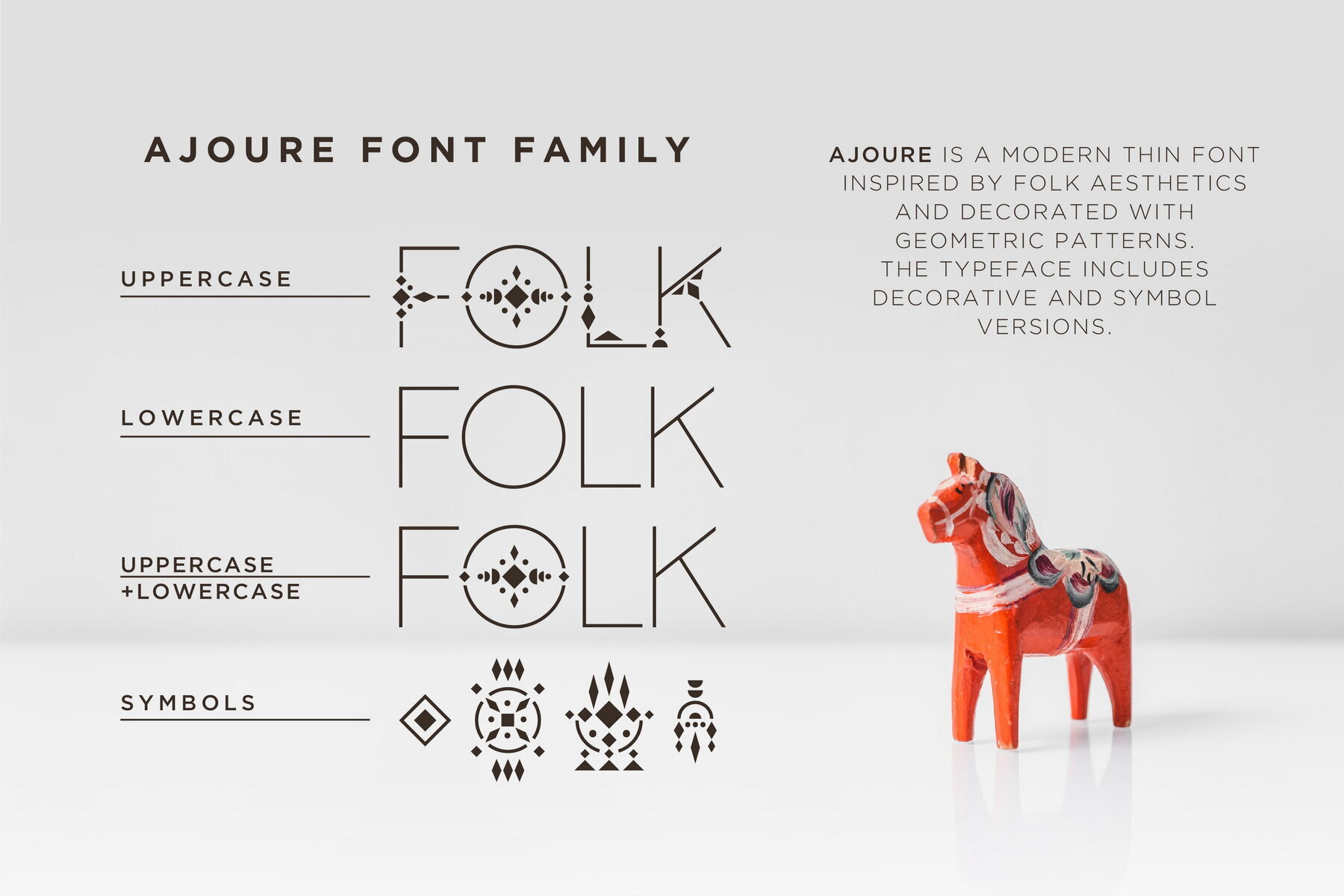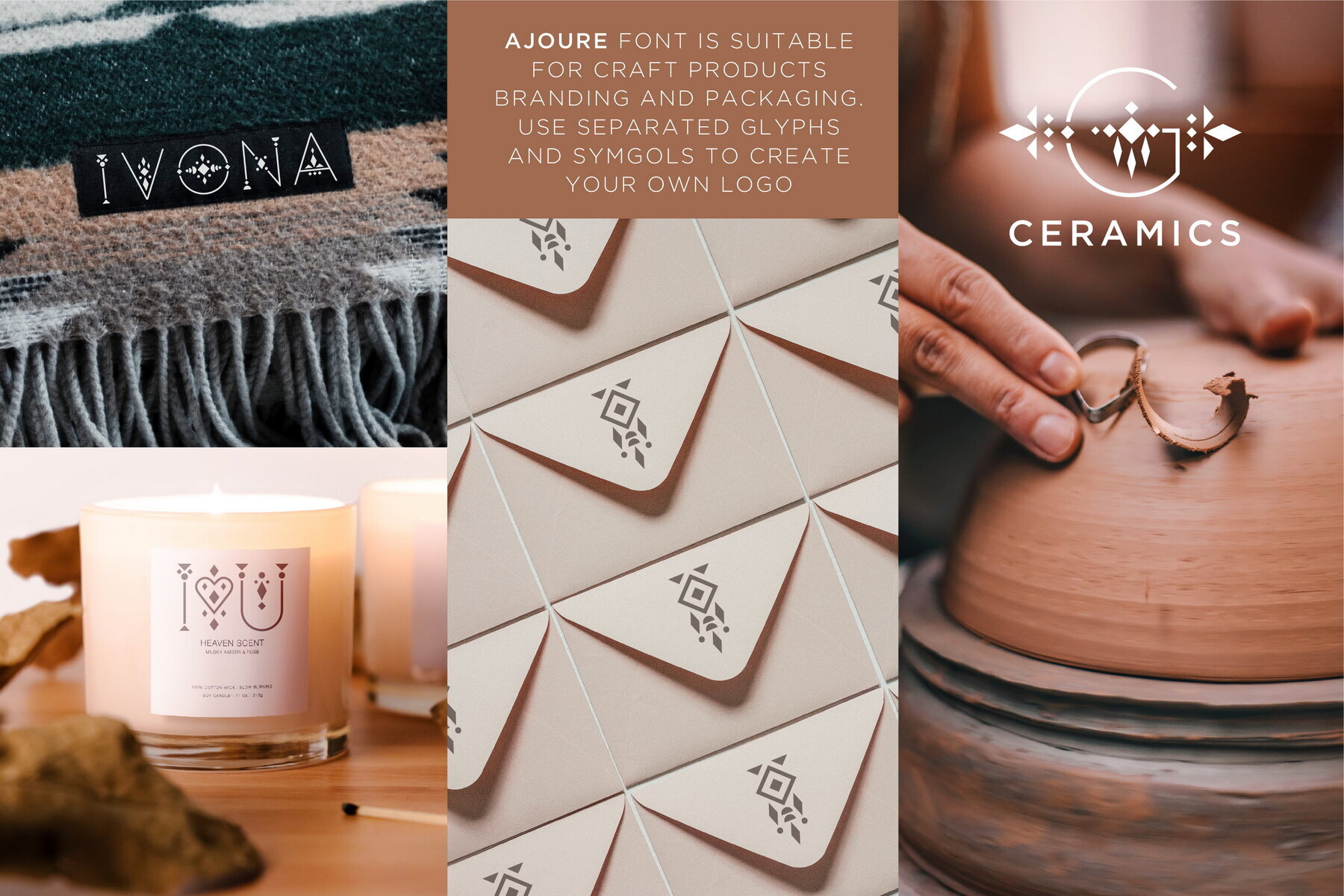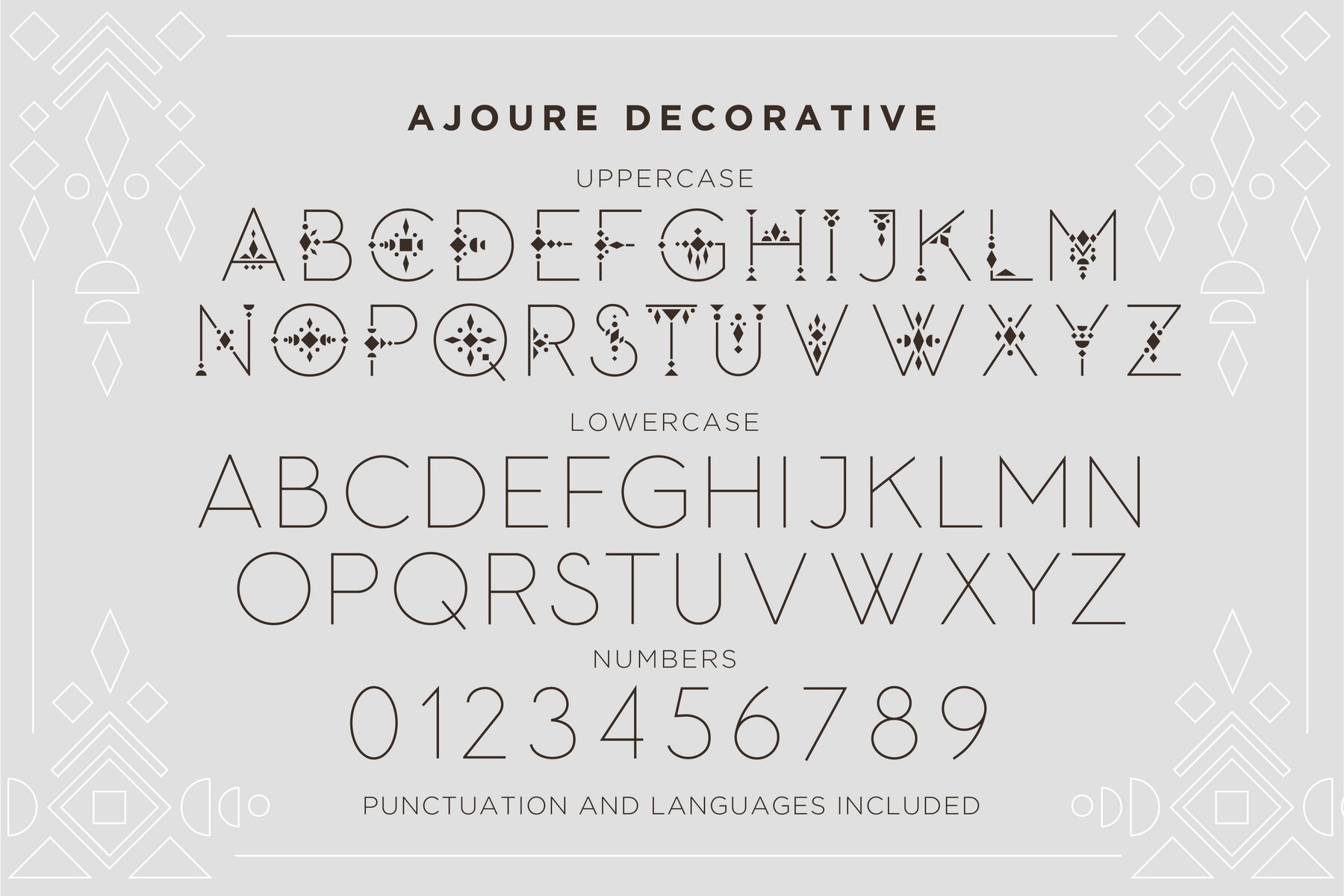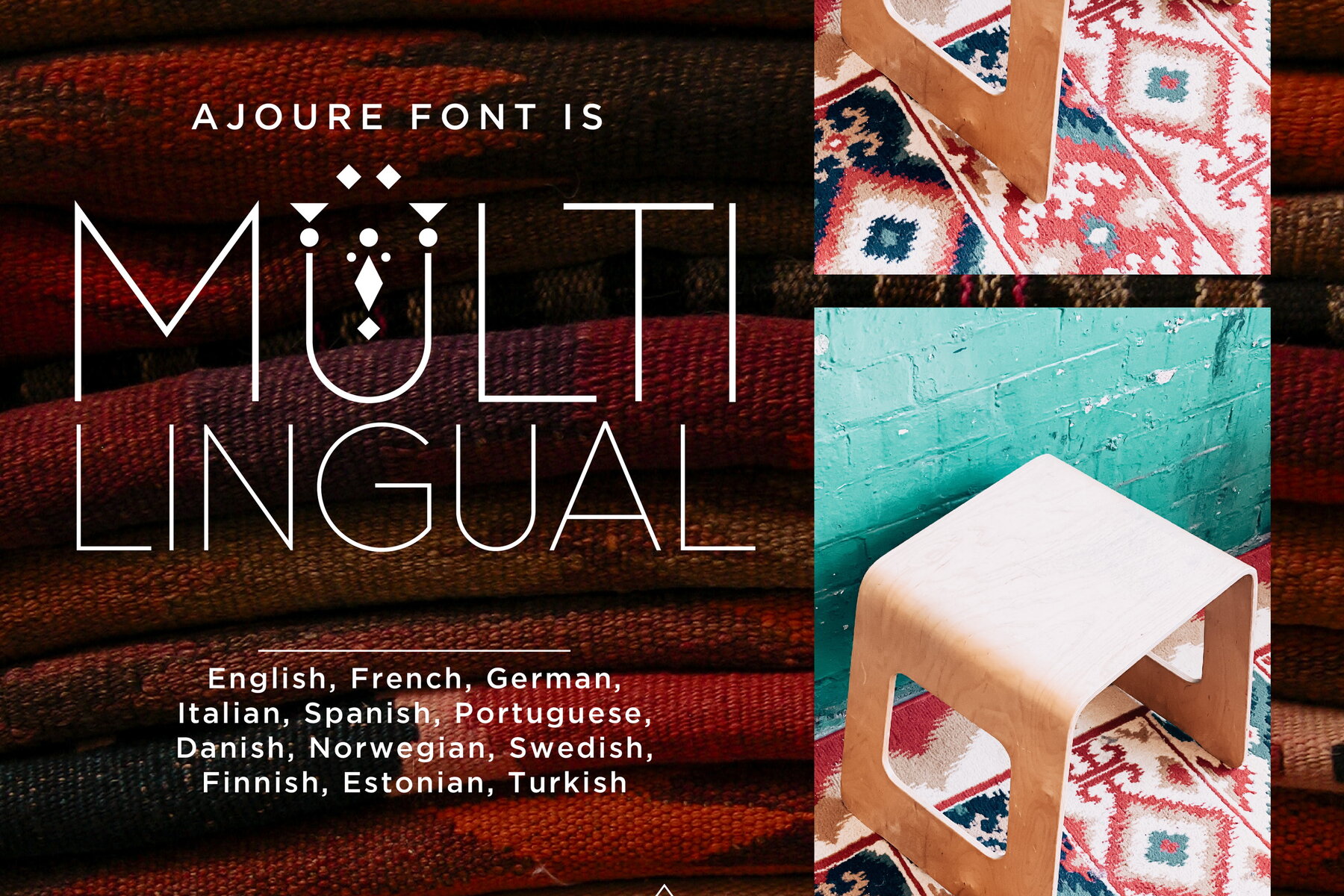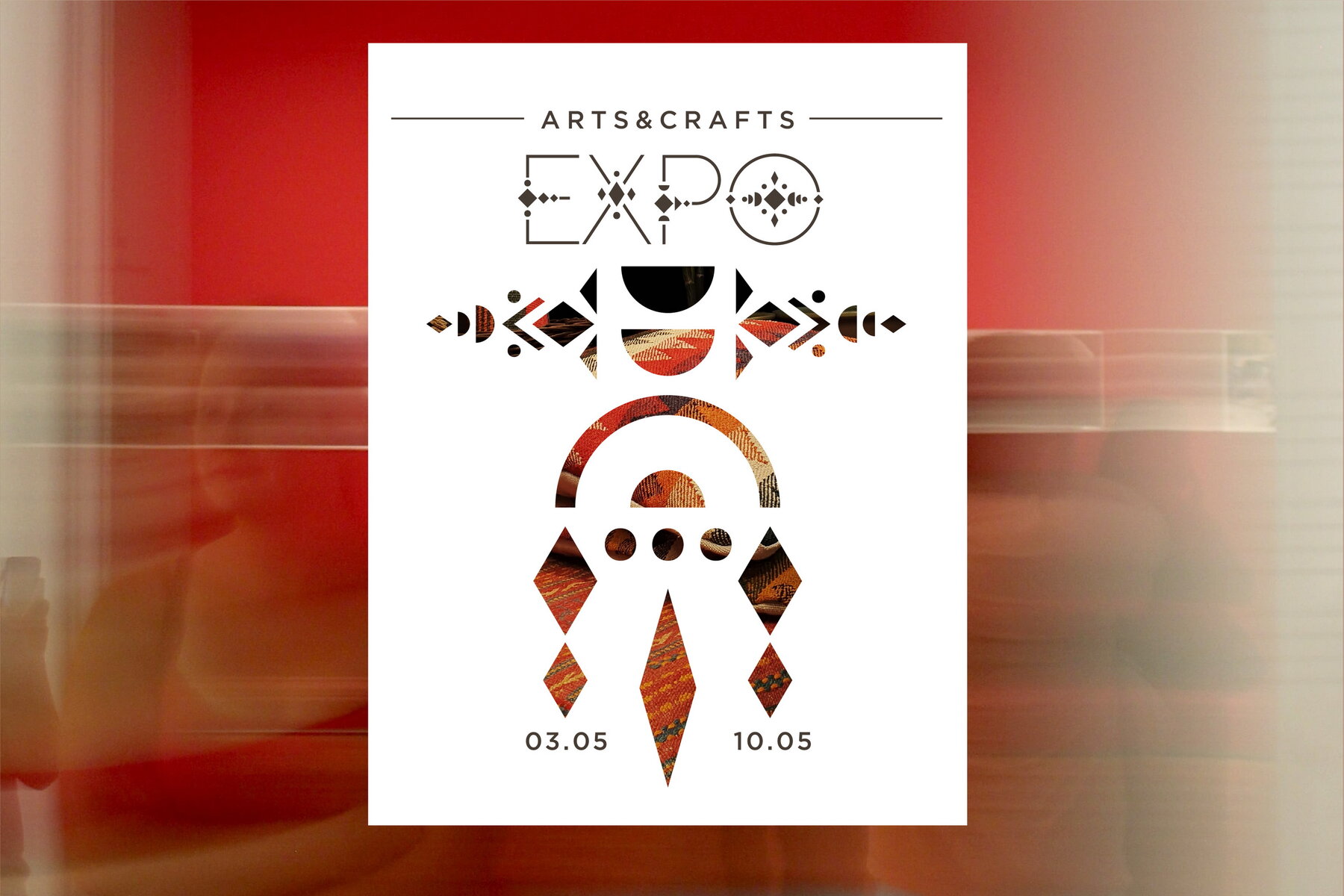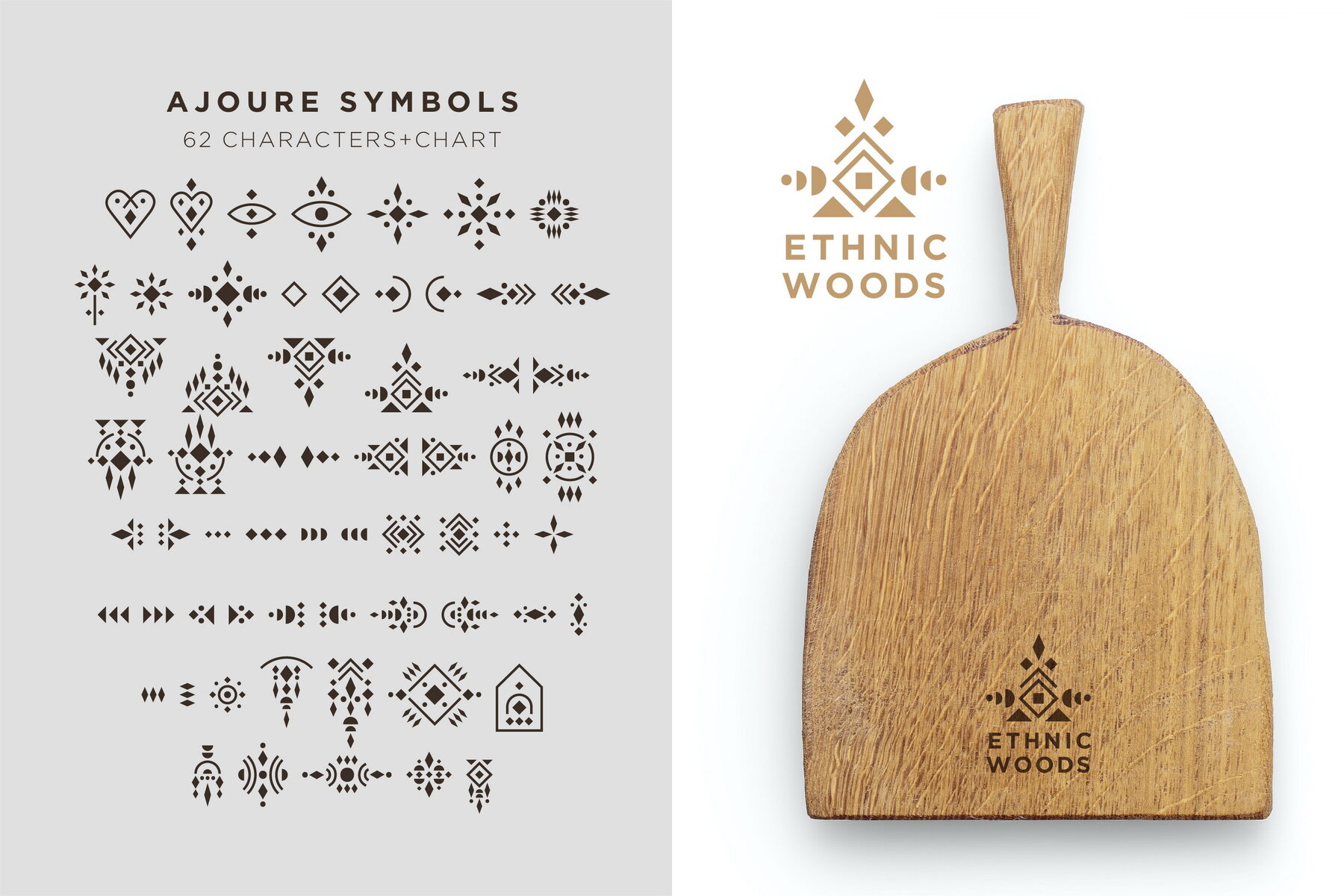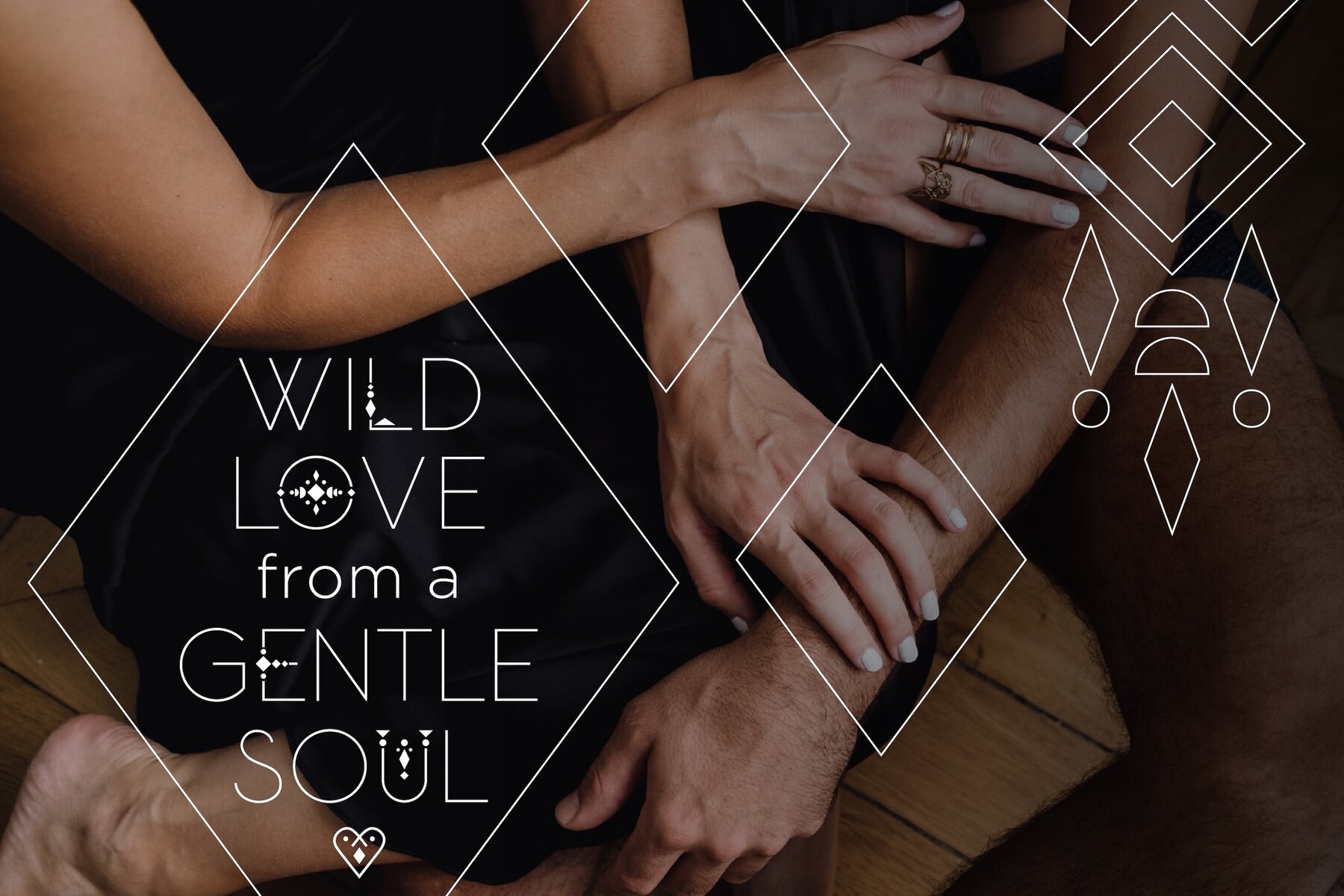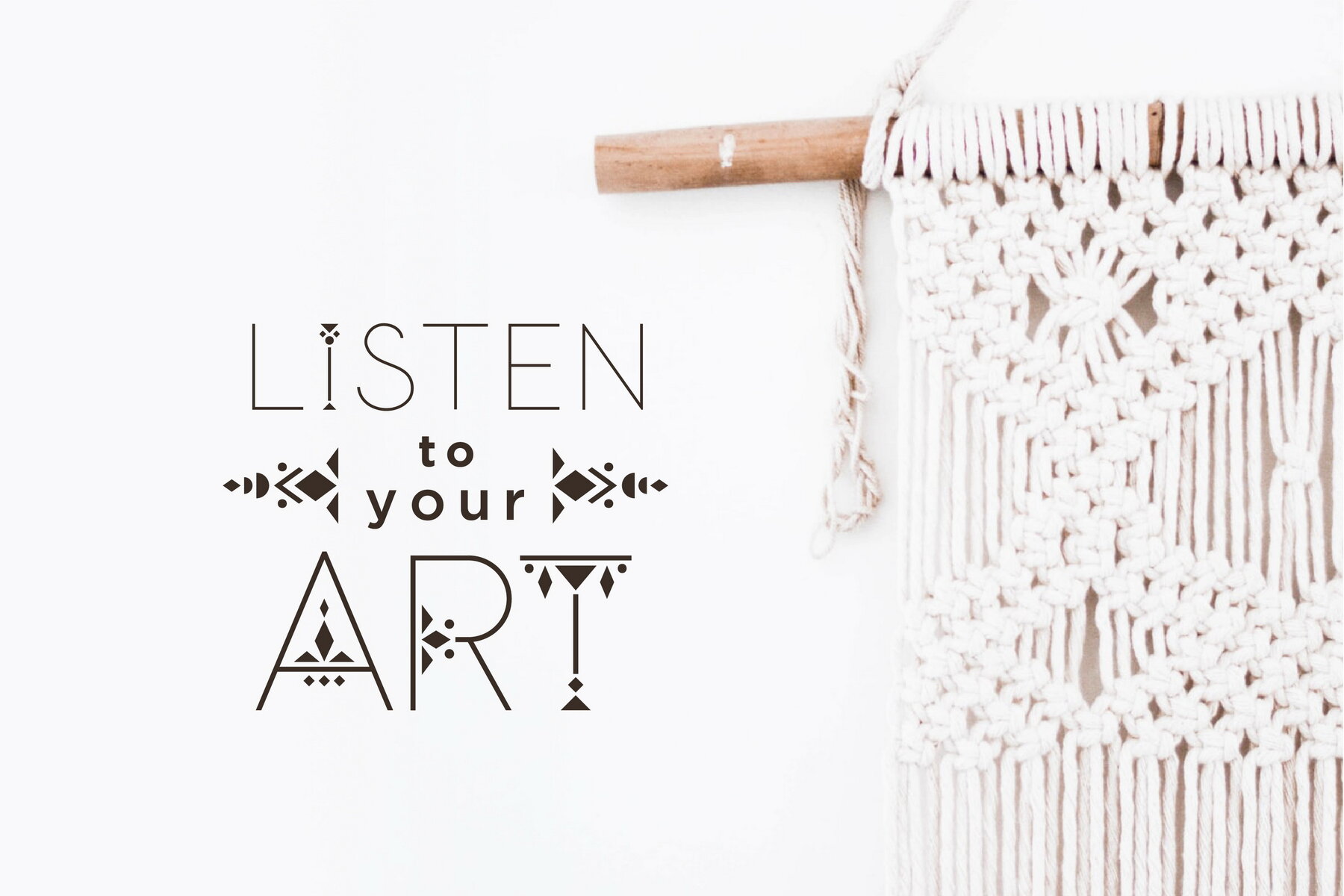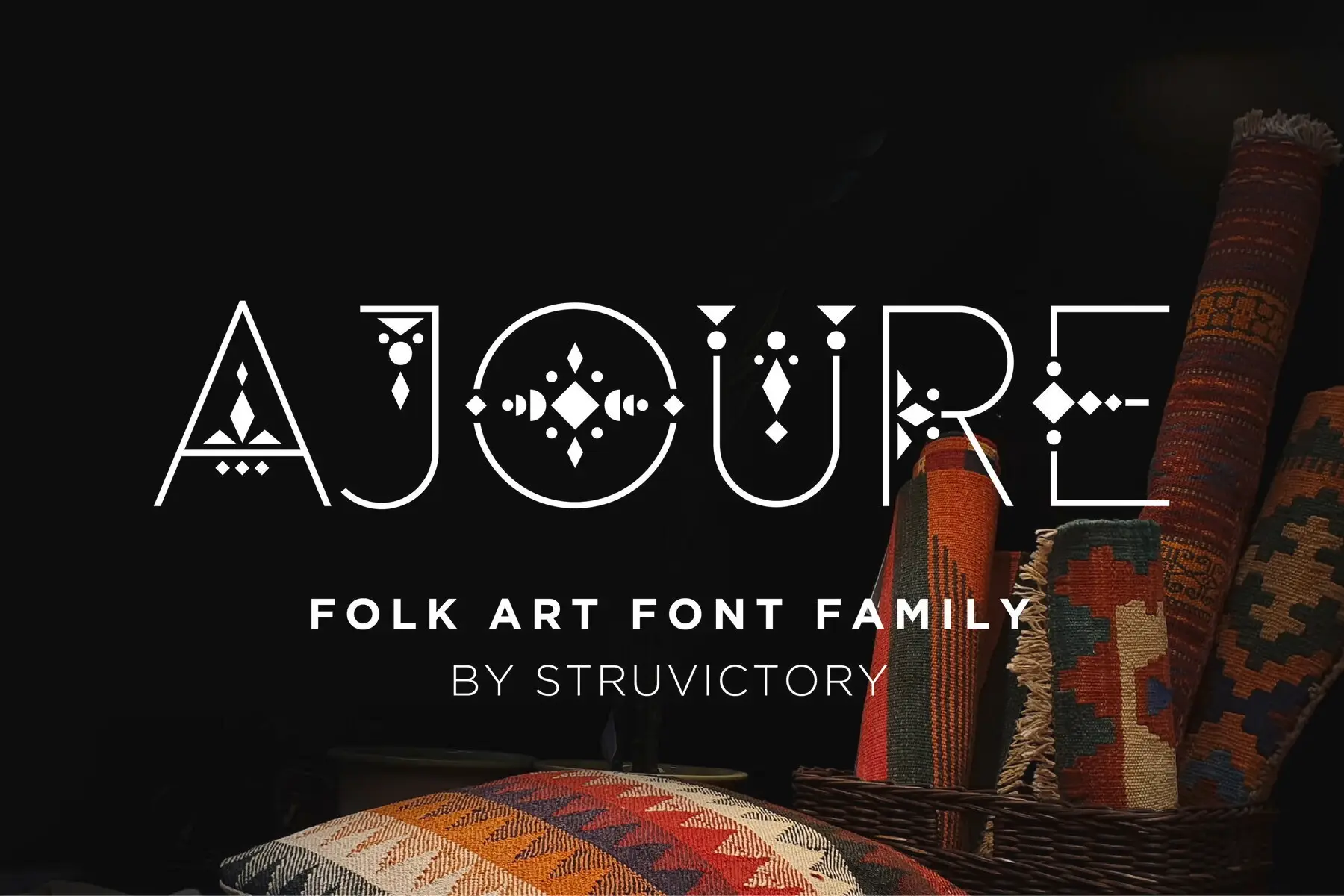
Ajoure Font
Ajoure Decorative
Ajoure Symbols
Ajoure is a modern thin font inspired by folk aesthetics, enhanced with geometric patterns for a unique visual appeal. This typeface offers two styles: Decorative and Symbol. The Ajoure Decorative style features thin line lowercase letters paired with ornate uppercase characters, making it ideal for creating distinct visual contrasts.
Perfect for branding and packaging, Ajoure is particularly suited for crafts such as needlework, ceramics, jewelry, and handmade soaps. It's also a great choice for event design and creating striking typographic posters. The font's versatile style allows for easy customization, making it excellent for crafting logos and monograms by utilizing individual letters and symbols.
Ajoure offers extensive language support, accommodating a wide array of languages including English, French, German, Italian, Spanish, Portuguese, Danish, Norwegian, Swedish, Finnish, Estonian, and Turkish. This broad language compatibility makes it a versatile choice for international projects.